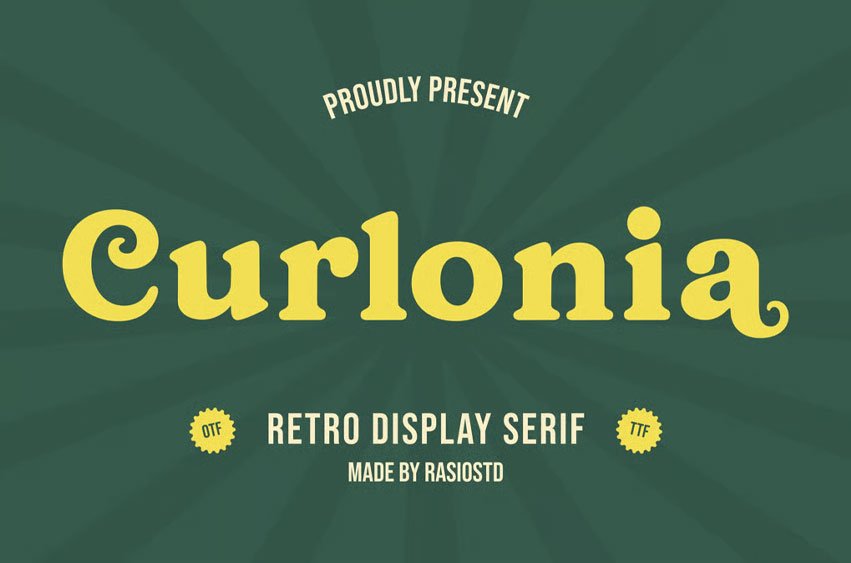
Curlonia Font is a bold and charming retro display serif typeface featuring lively curves, nostalgic letterforms, and playful terminals that bring vintage character to modern designs. Carefully crafted with balanced proportions, strong presence, and subtle decorative touches, this font works beautifully in large display settings such as headlines, posters, logos, packaging, and branded visuals.
The family includes full uppercase and lowercase alphabets, numerals, punctuation, symbols, and multilingual support for broad international use. Its eye‑catching personality makes it ideal for creative branding, editorial layouts, lifestyle products, and any project that benefits from a warm, nostalgic vibe.
Relevance and Use Cases is perfect for projects that need visual impact and artistic flair. This typeface excels in logo design, poster headlines, product packaging, fashion and lifestyle branding, editorial layouts, and creative social media campaigns. Its lively shapes and vintage warmth help evoke charm and character in both print and digital formats.